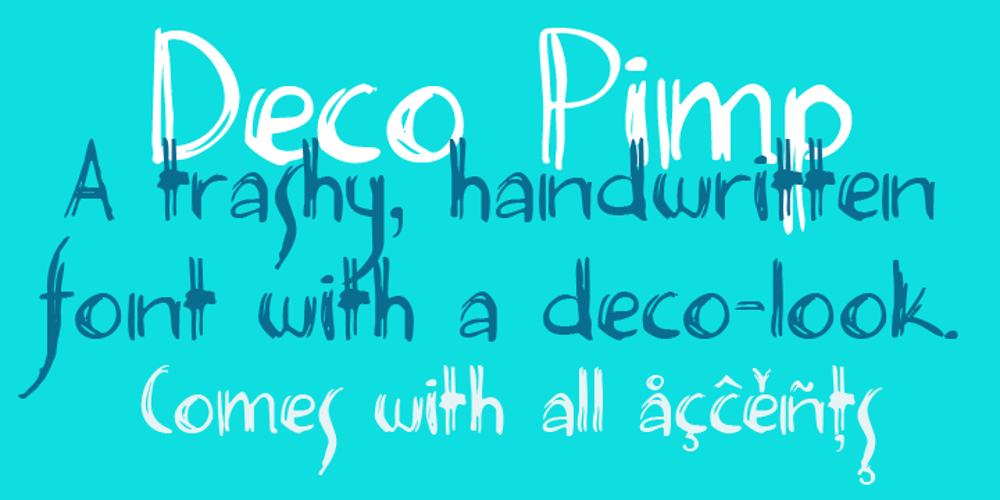
Deco Pimp
Deco Pimp font
Deco Pimp Font Family was designed by David Kerkhoff and published by Hanoded. Deco Pimp contains 2 styles and family package options. Deco Pimp is a trashy, handwritten font with a deco-look to it. It has some unusual letters, but is very legible nonetheless.